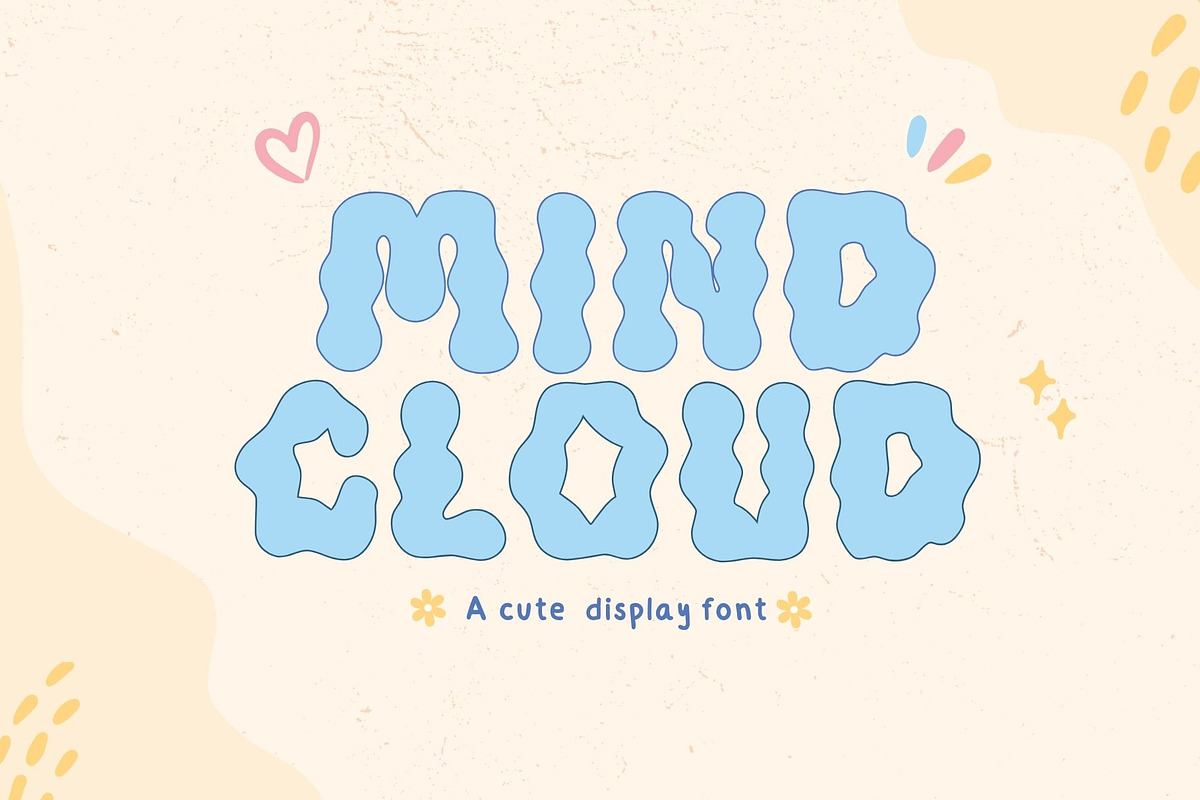
Mind Cloud Font Free Download is a dreamy and creative typeface that combines organic, flowing shapes with modern design elements. With its unique, cloud-like letterforms, this font is perfect for projects that require a whimsical, artistic touch. Ideal for creative branding, poster designs, logos, and social media graphics, Mind Cloud evokes a sense of fluidity and imagination.
Whether you're designing for a dreamy brand, an artistic project, or a creative campaign, Mind Cloud adds a fun and imaginative flair to your typography. Its soft curves and airy feel make it ideal for designs that need to feel light and free.